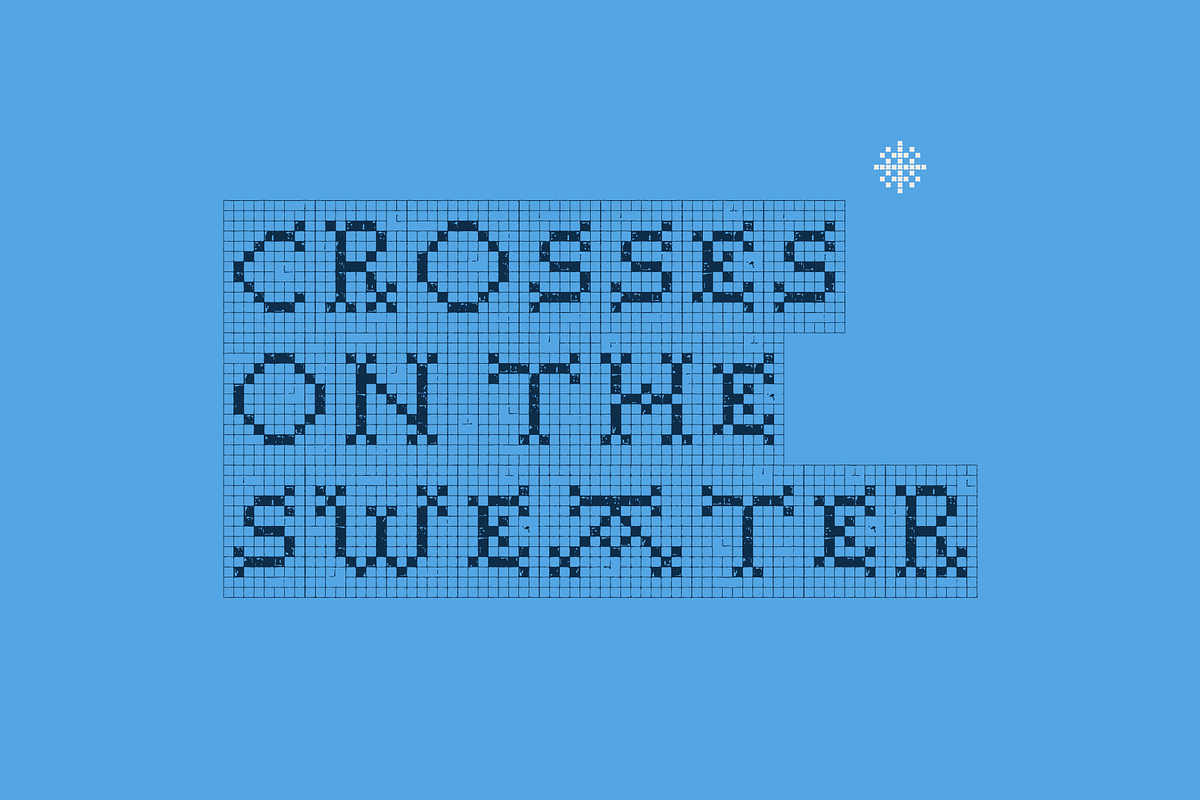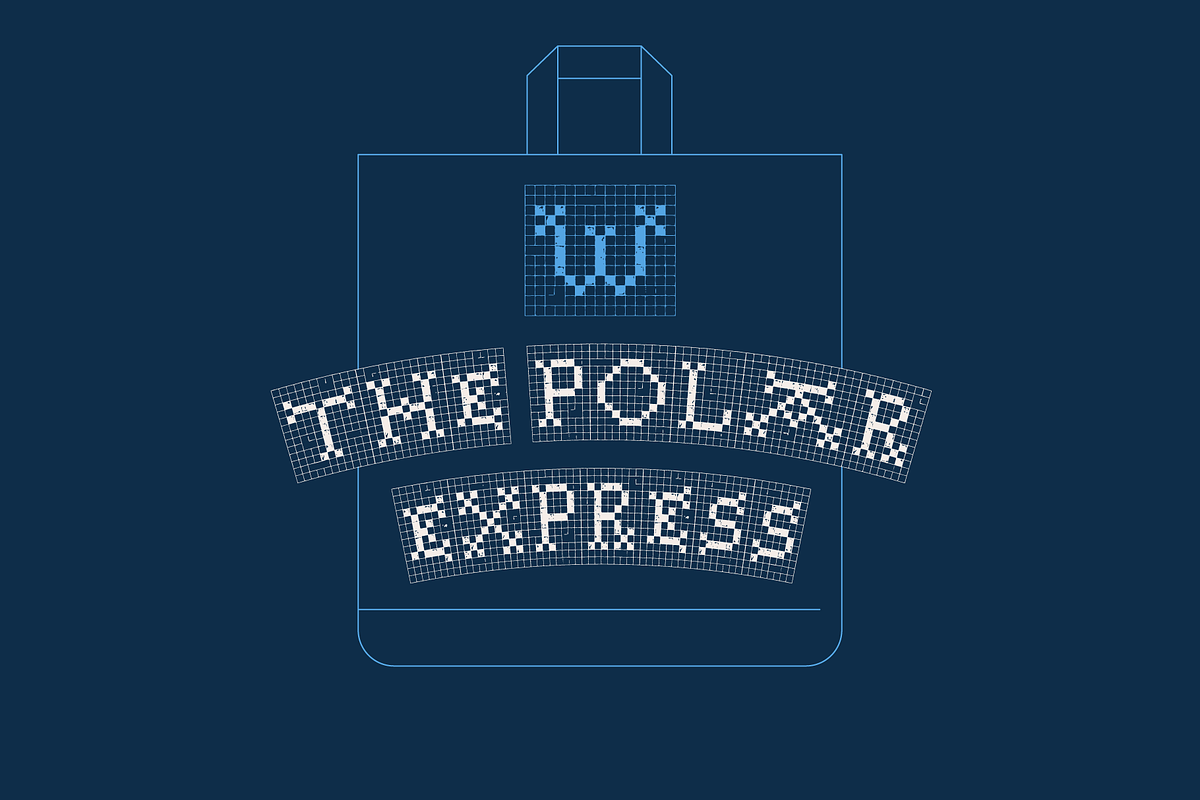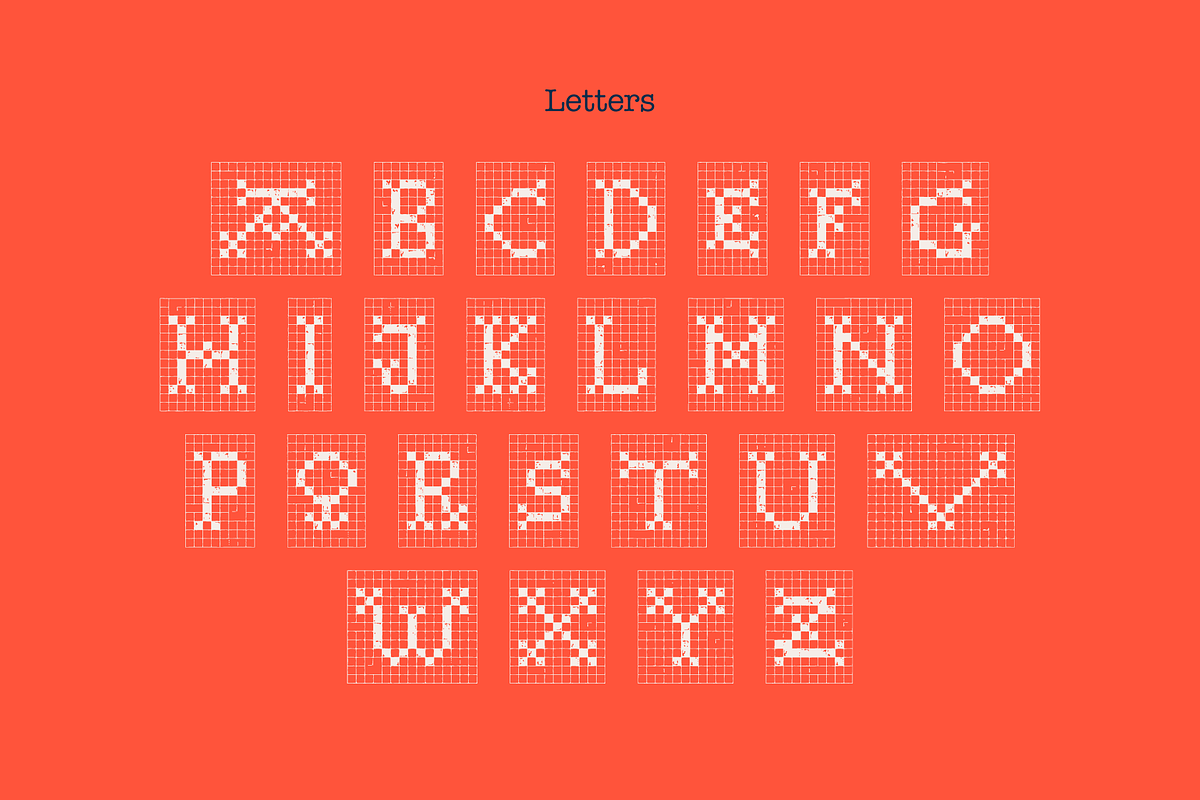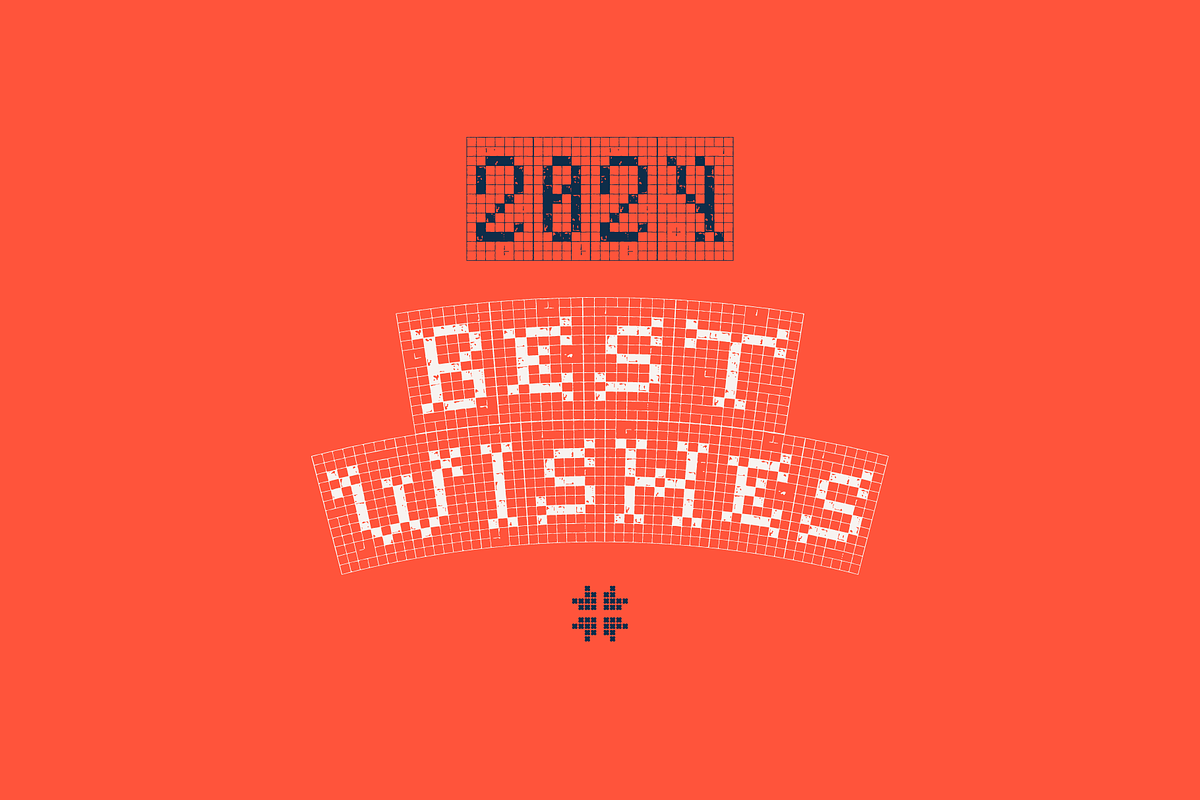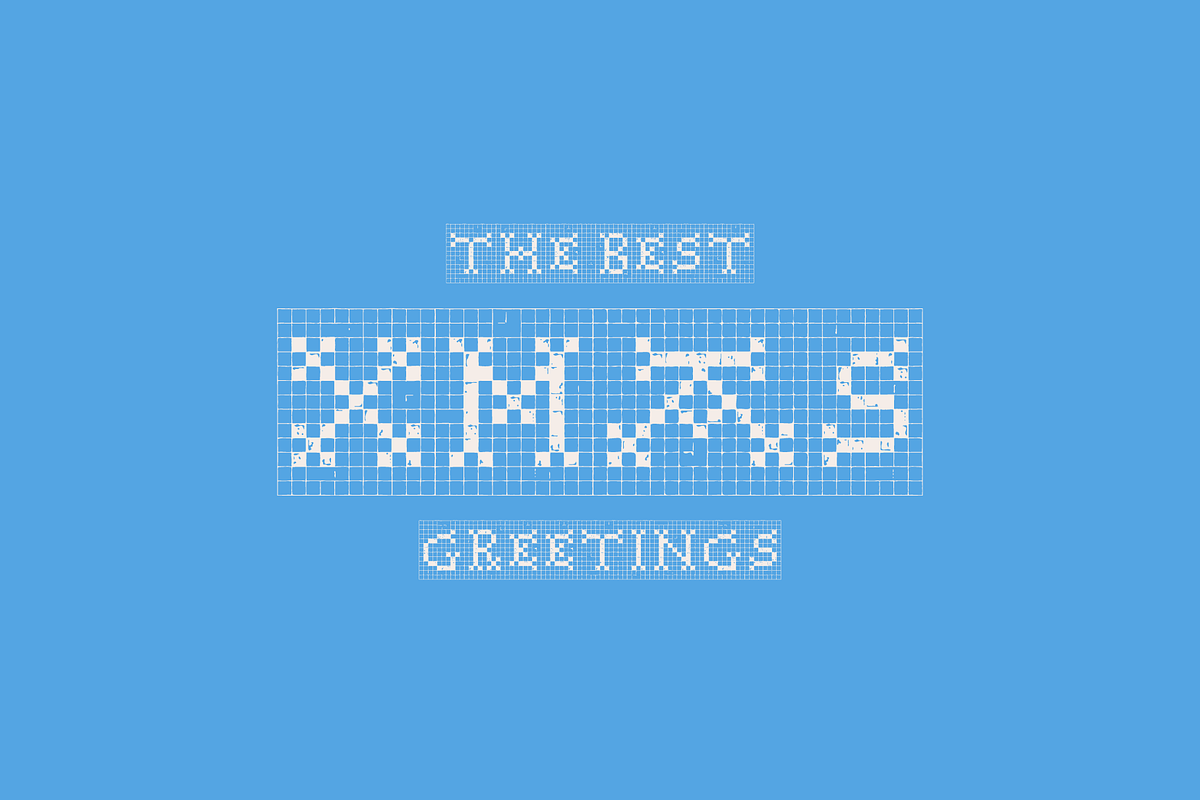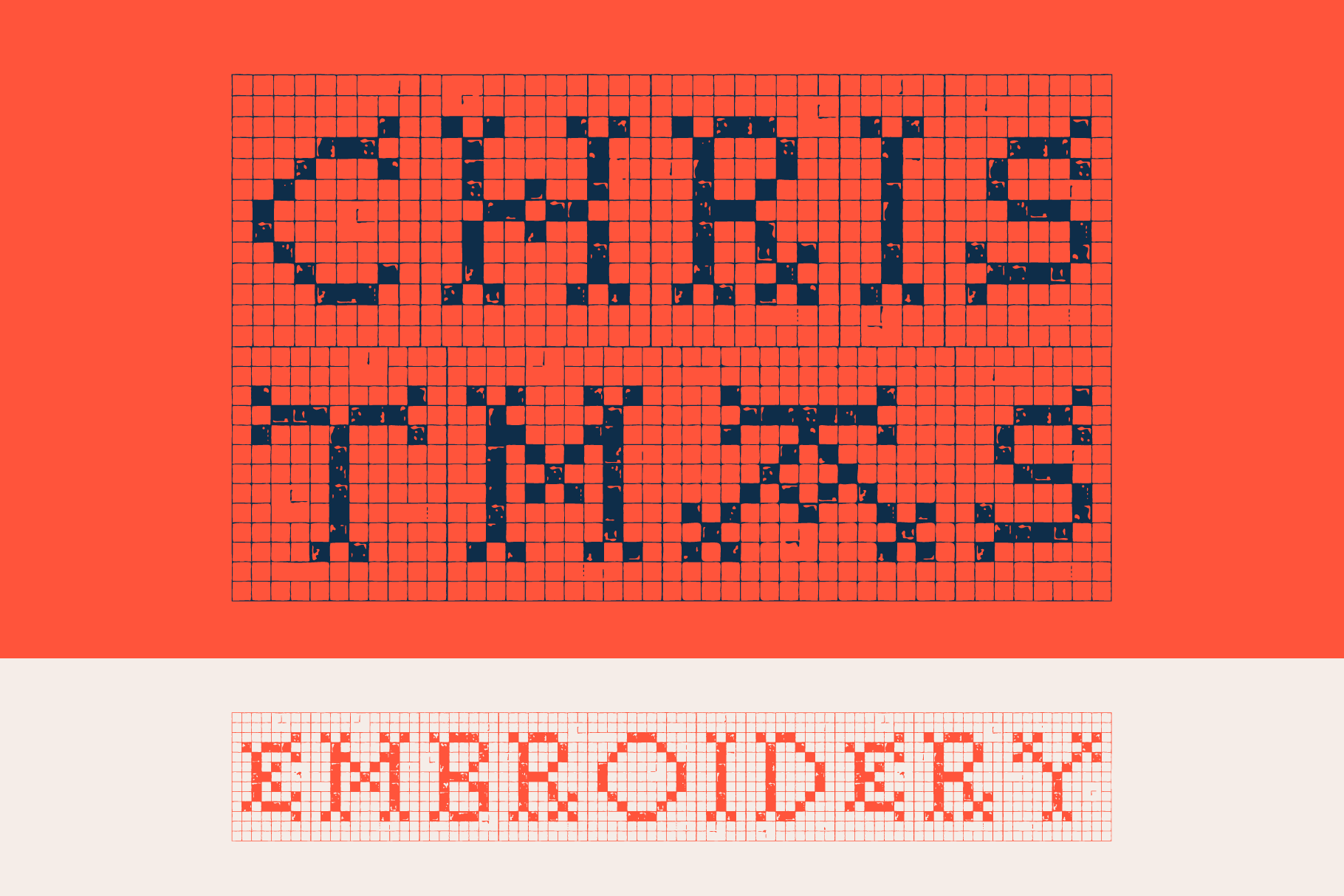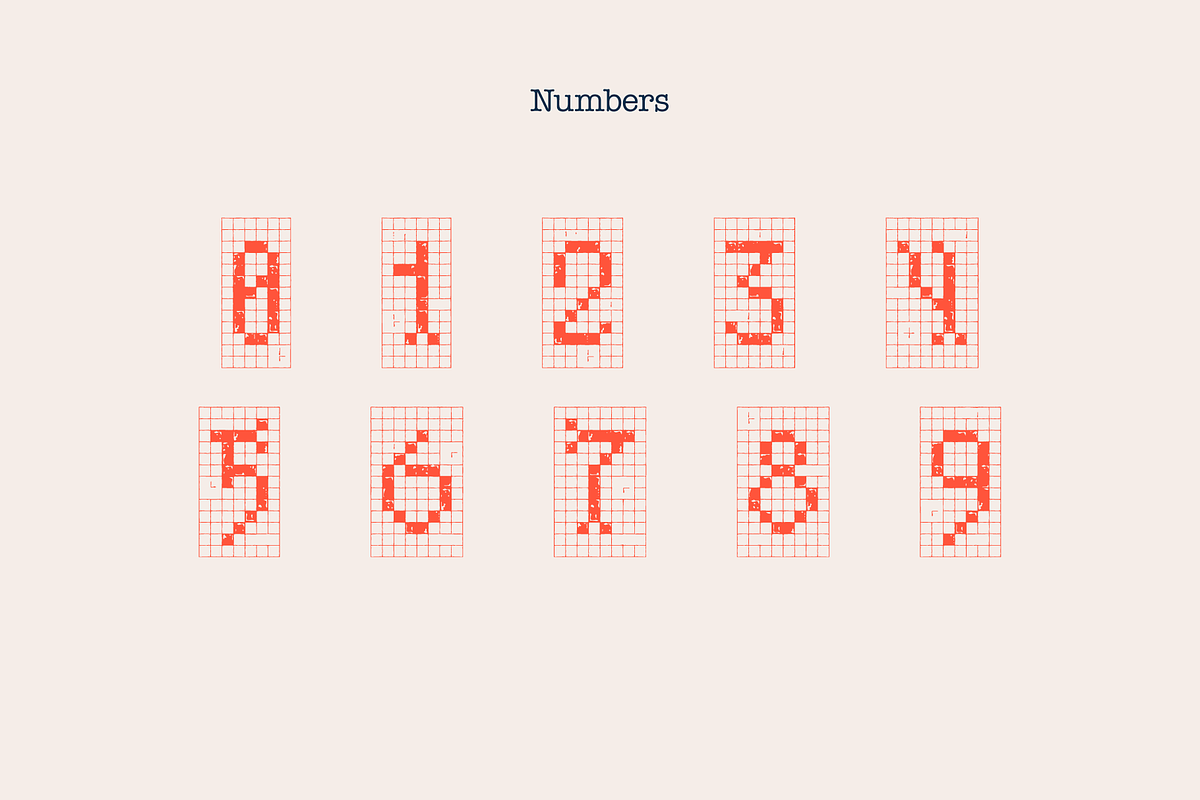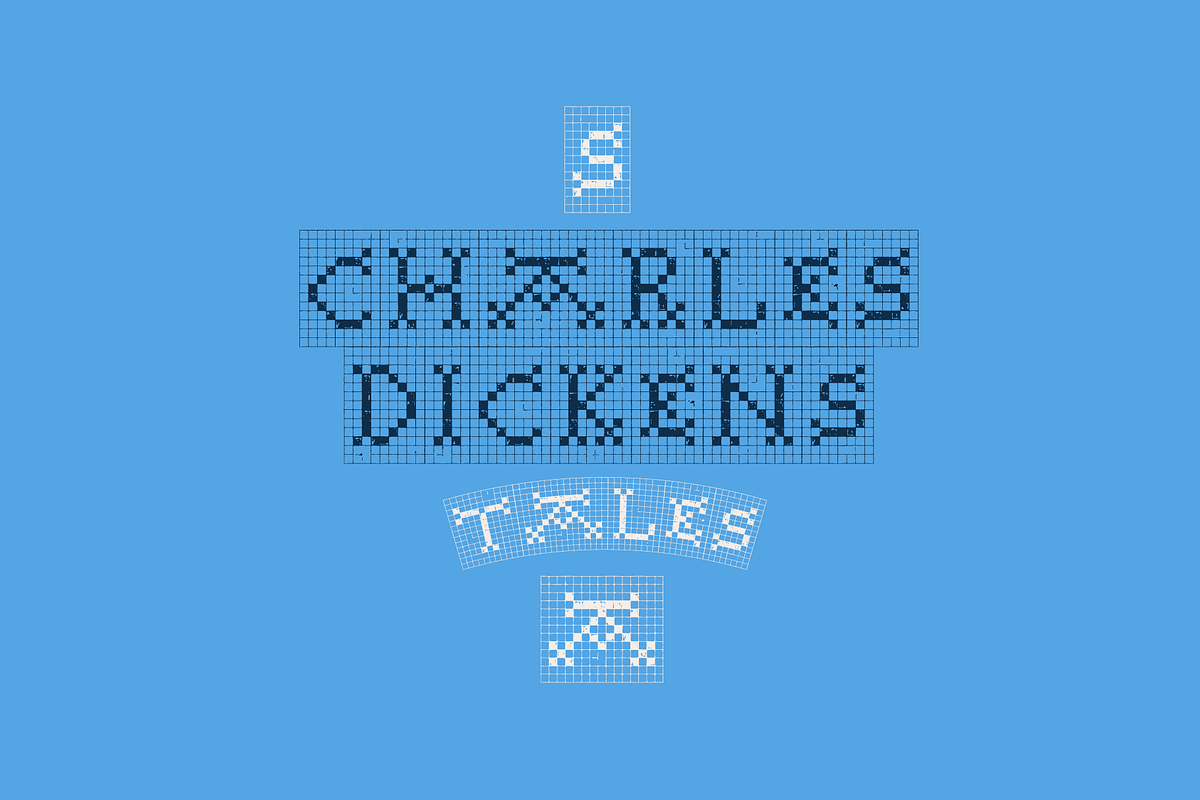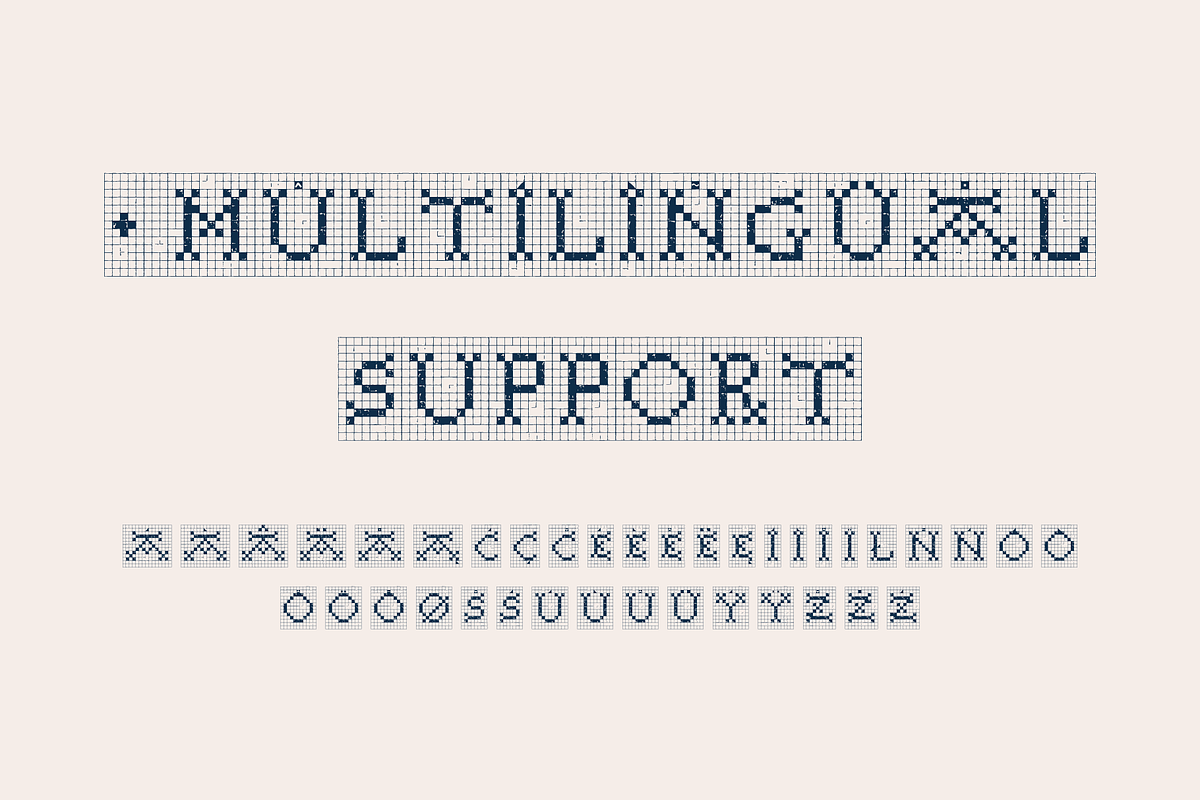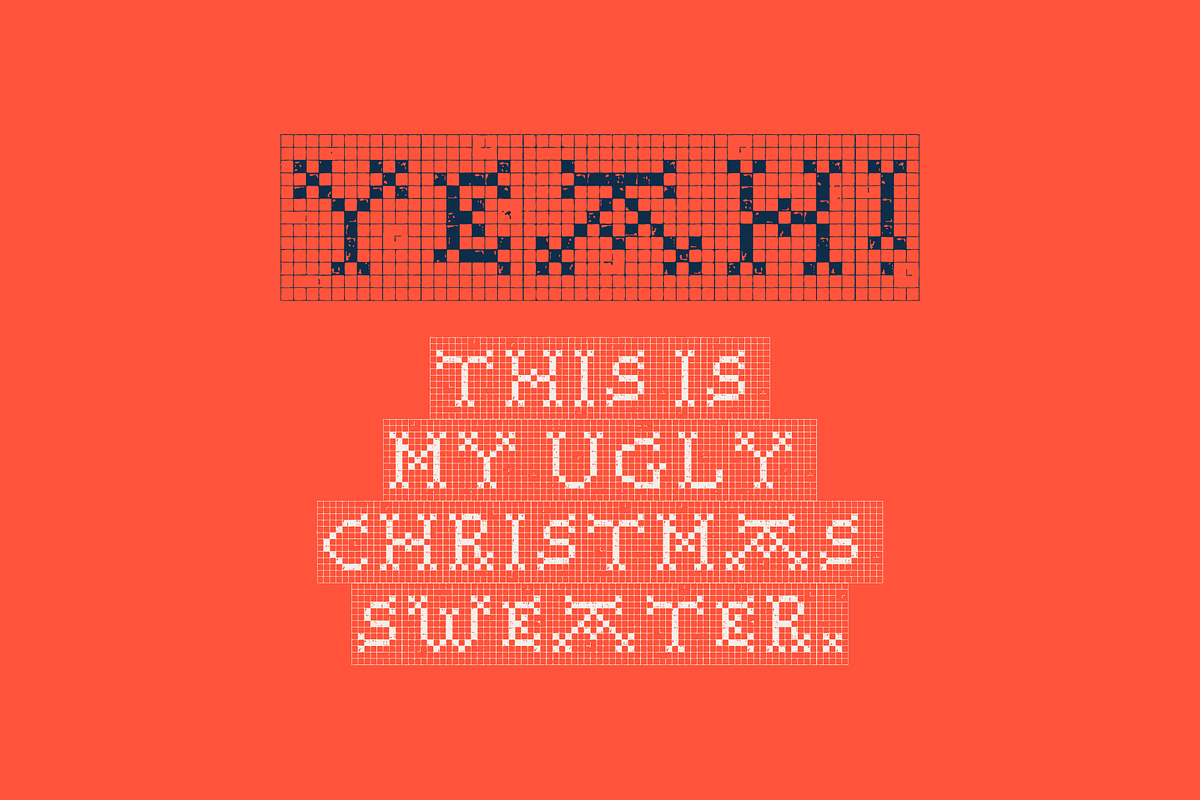
Christmas Embroidery cute font
Are you ready for Christmas and New Year 2024? Have you prepared gifts for your loved ones and colleagues? Are all the cards, T-shirts, and souvenirs printed?
Christmas Embroidery is a knitted fonts family in regular and icons styles. All letters are inspired by sweater designs made of bold round knits.